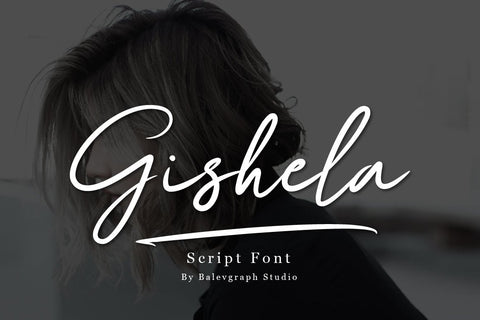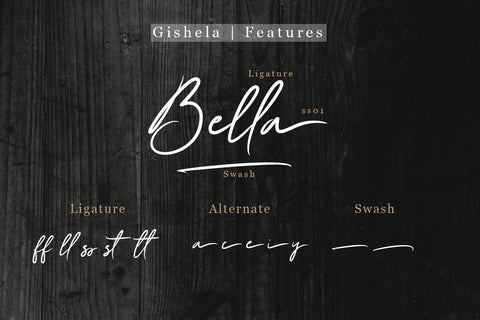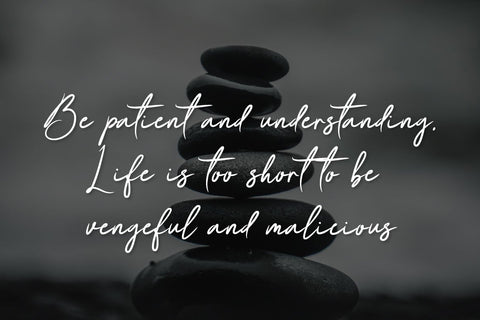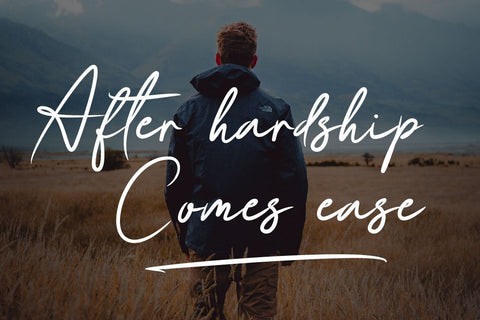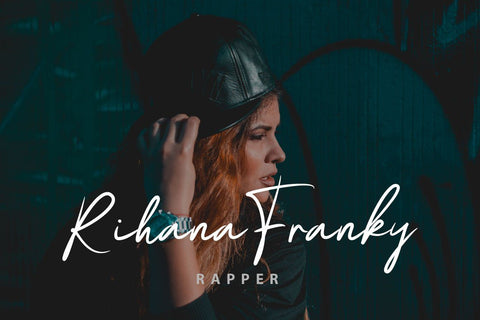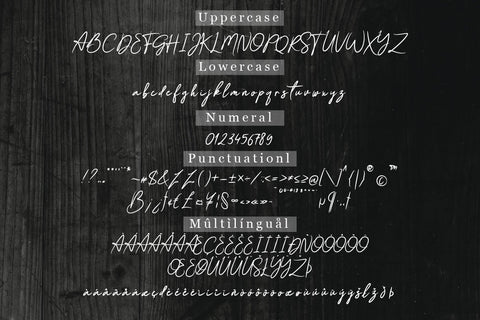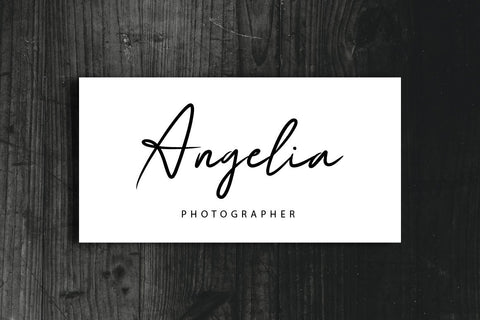
Gishela Script Font
Gishela is a lovely, thin and delicate script font that exudes elegance and class. This font was particularly crafted for those who need a beautiful and refreshing look to their designs.
- Uppercase, Lowercase, Numerals & Punctuations
- Ligature & Alternate
- Multilingual support